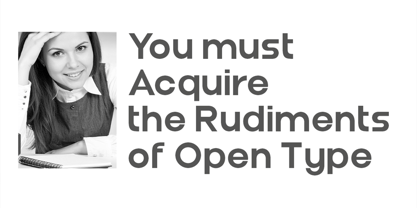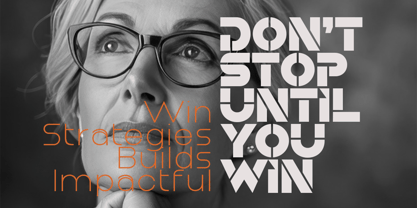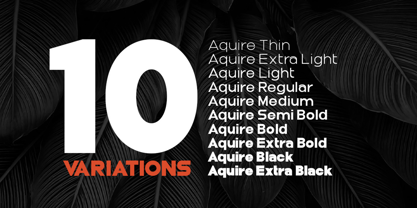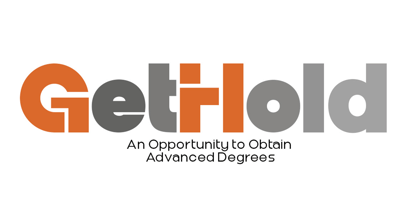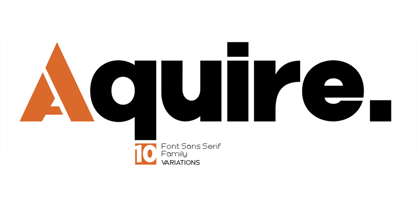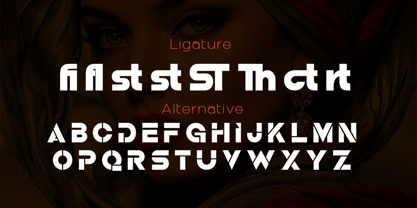
Aquire
by Artisan Studio
The Aquire Font Family was designed by Roiyani Teungku and published by Artisan Studio. Aquire contains 10 styles and family package options.
Aquire is a New Formal and Elegant Typeface. Created in a very bold style.
Aquire is a variation of the normal style font and has a distinctive feature in the corners of the glyph characters look sharp. This font comes in 10 variations, This font looks amazing in logos, magazines, and films. This font will be perfect for branding, headlines, captions, paragraphs, and posters. Various weights allow you to experiment with various applications. This font is made to make an impression without sacrificing its beauty and readability.
Aquire is Sans-serif lettering and typefaces are popular due to their clarity and legibility at distance in advertising and display use, both when printed very large or small.